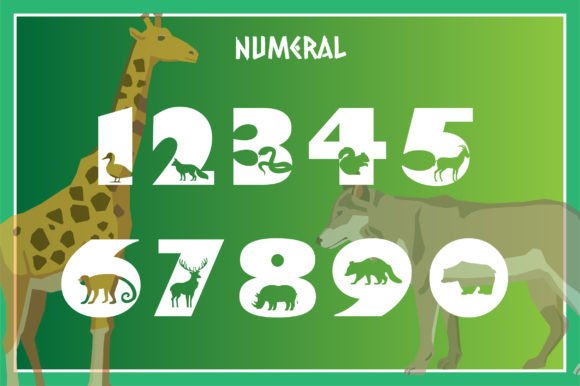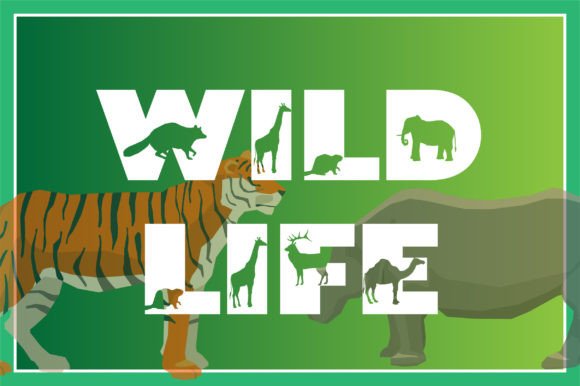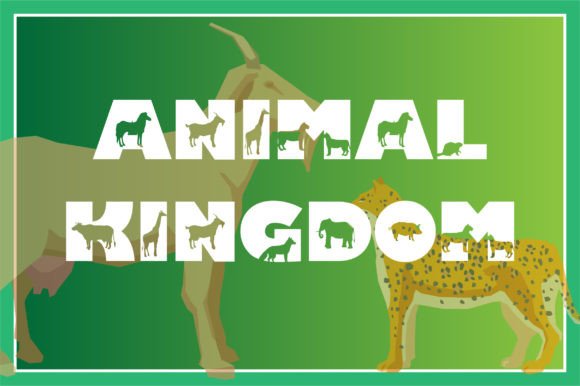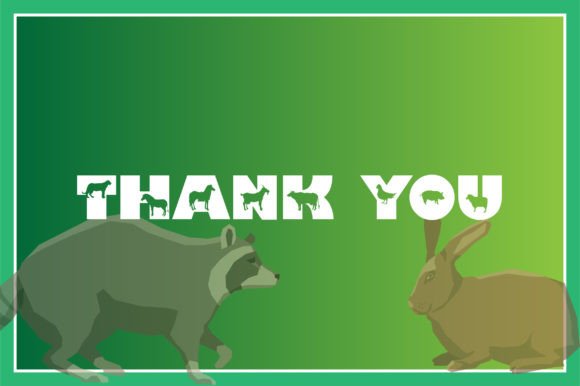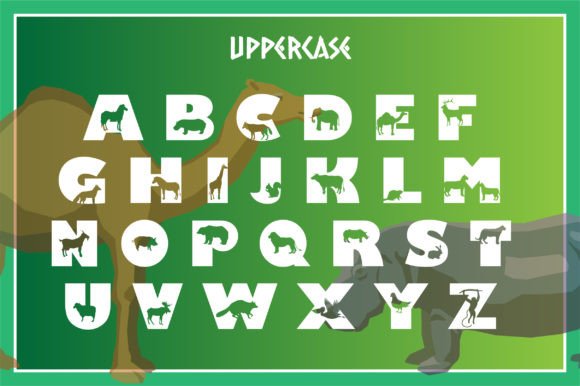
The Magic of Animally Font: Where Typography Meets Whimsy
Have you ever found yourself brainstorming ideas for a creative project and suddenly, a spark of inspiration hits? For designers and party planners, this moment is a game-changer. For me, it was while planning a woodland-themed birthday party for a little one that I stumbled upon the perfect solution – Animally Font. This charming font is more than just a design element; it’s an experience that brings the outdoors in.
Animally Font is a unique typographic creation that infuses fun creature silhouettes into its letters. Whether you’re designing invitations, decorations, or even a logo, this font adds a playful touch that’s sure to delight. Its versatility makes it a valuable asset for designers, allowing them to create a wide range of designs that evoke the magic of the forest.
Animally Font Key Features
- Unique Characteristics: Animally Font features a unique blend of playful and whimsical elements, making it perfect for children’s books, educational materials, and other creative projects.
- Font Weight: Animally Font comes in 3 different font weights: Light, Regular, and Bold, allowing designers to choose the perfect weight for their project.
Review of Animally Font
Overall, I think the Animally font has some great qualities that make it a solid choice for certain design projects. ✨ One of the things I appreciate is its unique, hand-drawn style, which adds a touch of personality to any text. ✨ The font also has a nice range of weights and styles, making it easy to customize to suit different needs. ✨ Additionally, the font is highly legible, even at smaller sizes, which is essential for any font.
However, there are a few limitations that prevent me from giving it a perfect score. ⚠️ One of the main issues is that the font can feel a bit overwhelming when used in large blocks of text. ⚠️ The hand-drawn style, while charming, can also make the font feel less polished in certain contexts. ⚠️ Finally, I found the font’s italic and bold styles to be a bit inconsistent, which can make it difficult to use them effectively.
- Unique, hand-drawn style
- Highly legible, even at smaller sizes
- Range of weights and styles
Overall, I think the Animally font is a great choice for projects that require a touch of personality and whimsy. However, it may not be the best fit for more formal or technical projects where a more polished font is needed.
Use the Animally font for creative and playful designs, such as:
– Blog posts and articles
– Infographics
For the best results, pair the Animally font with bold and vibrant colors and creative graphics.